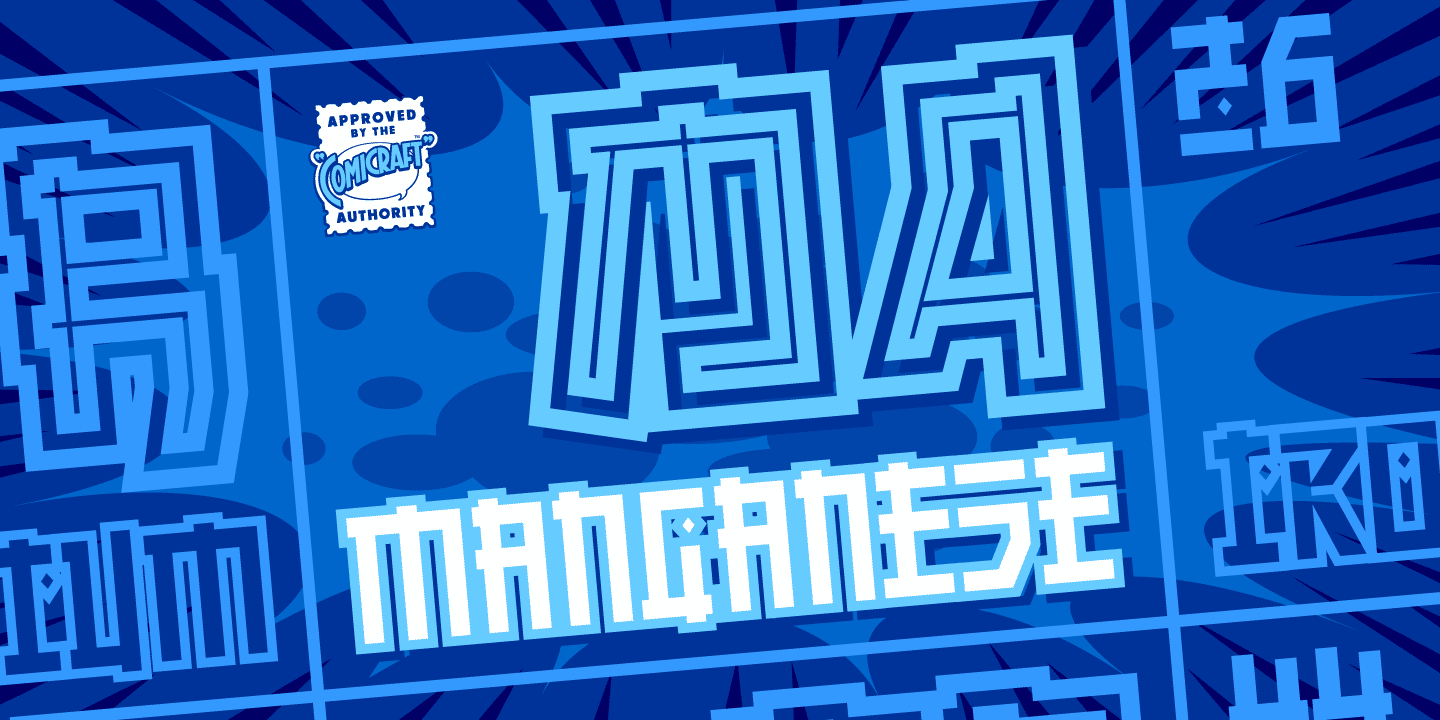
The Manganese Font excels in various design applications including industrial metallurgy branding, chemical engineering communications, scientific laboratory signage, industrial steel manufacturing materials, technical research institute identities, mineral processing company promotions, heavy industry marketing, scientific equipment packaging, industrial alloy documentation, and distinguished technical projects that demand metallurgical precision and industrial sophistication.
What makes the Manganese Font exciting is its robust embodiment of industrial strength and chemical precision through letterforms that capture the essence of metallic durability and the scientific accuracy of industrial metallurgy. This typeface demonstrates exceptional strength through carefully engineered characters that suggest the molecular structure of manganese alloys, the precise measurements of chemical processes, and the industrial reliability that makes metallurgical science so fundamentally important to modern manufacturing. The font's metallurgical personality makes it perfect for industrial companies and scientific organizations seeking to communicate technical authenticity, chemical precision, and the kind of industrial expertise that creates reliable metallurgical experiences through typography that literally forges with scientific accuracy.
The Manganese Font family typically includes industrial weight variations that enhance the metallurgical aesthetic, featuring technical styling options and extended character sets optimized for scientific communications and industrial applications. These family options often include chemical-inspired alternates, industrial symbols, and technical decorative elements that provide designers with comprehensive tools for creating authentically scientific typography that celebrates metallurgical expertise while maintaining contemporary design appeal and industrial credibility.
Industrial professionals and scientific organizations consistently choose Manganese Font Free Download for projects requiring typography that communicates technical authenticity and metallurgical sophistication. This typeface delivers exceptional performance in industrial marketing, scientific branding, and technical communications where establishing expertise and creating industrial atmosphere is essential for technical community engagement. The font's chemical character makes it particularly effective for laboratory and manufacturing applications. Download Manganese Font Free Download today to access this industrially precise typeface that transforms technical communications with its metallurgical elegance and scientific sophistication, creating compelling industrial experiences that honor the magnificent precision of chemical science while celebrating the industrial strength that defines authentic metallurgical excellence and scientific achievement.